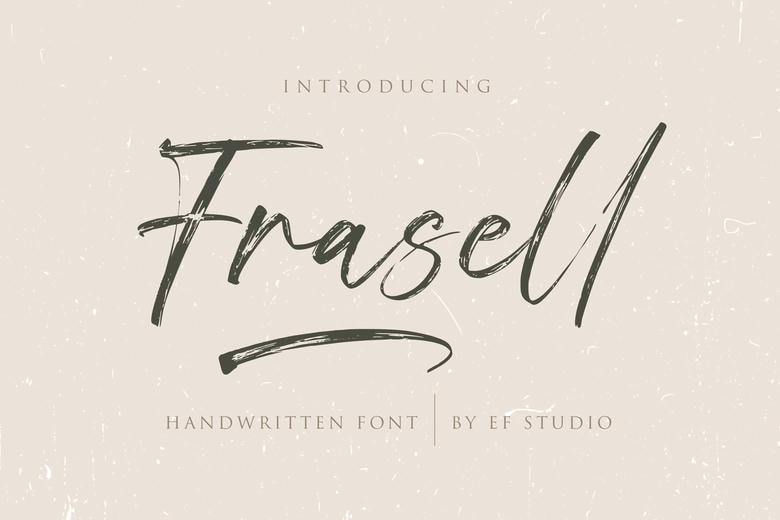
Frasell Font
Frasell is a lovely, flowing and delicate script font. Add this brushed and uniquely designed font to your library and notice how easily it will light up any project that you add it to.
Frasell Brush Script Font